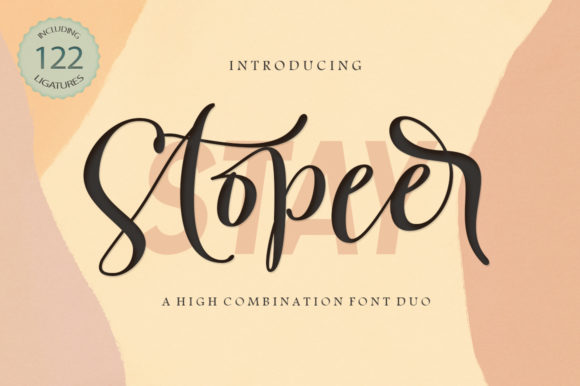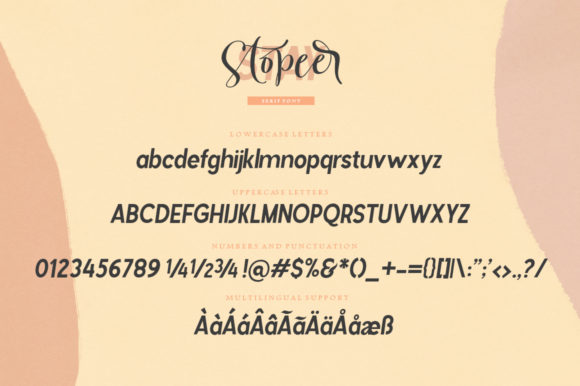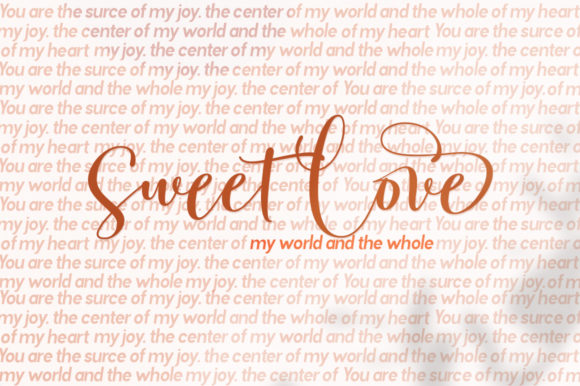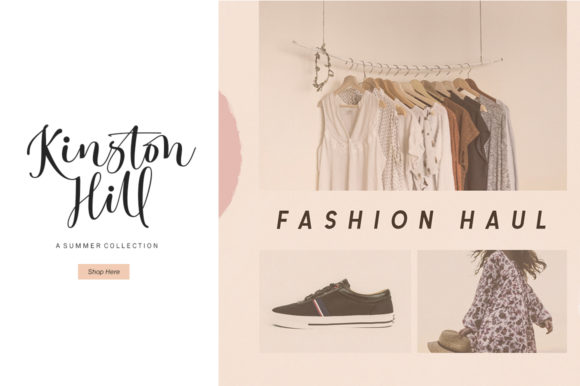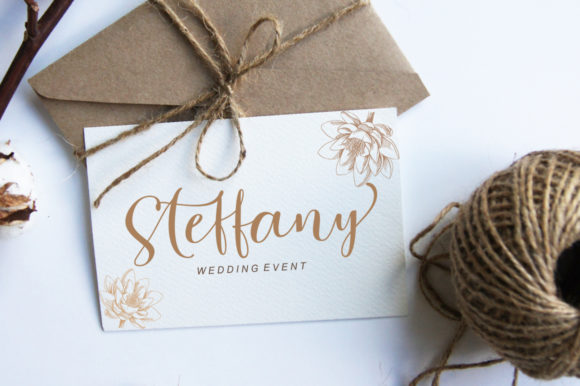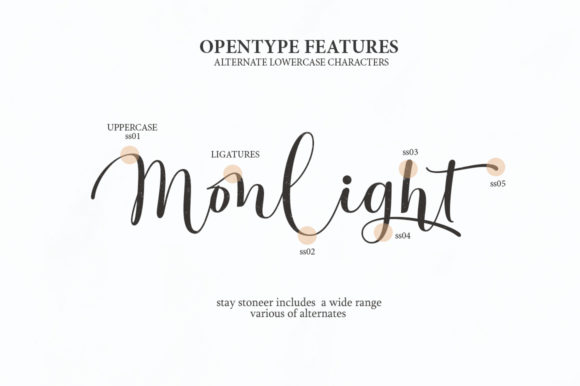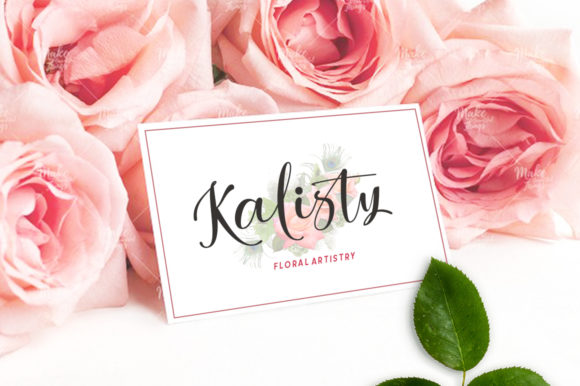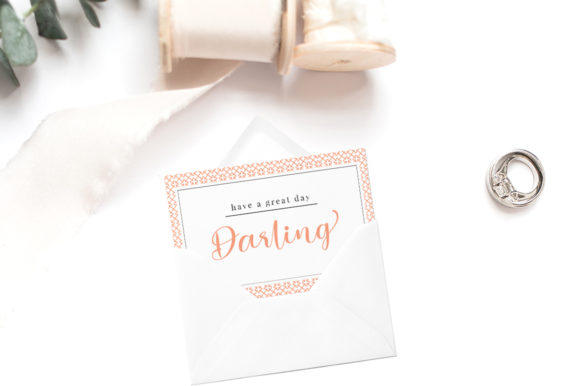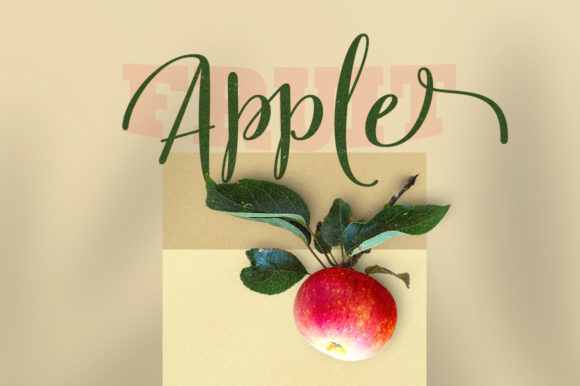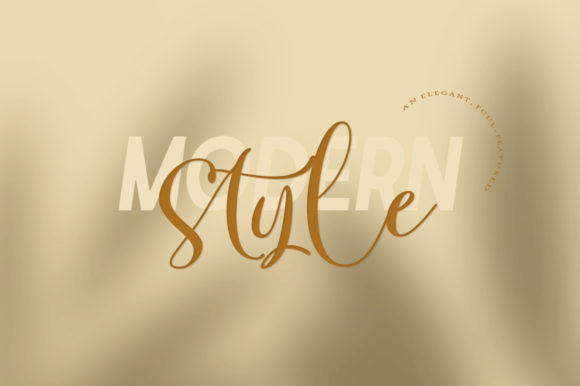
Stay Stopeer Duo Font
About Stay Stopeer Duo Font
Stay Stopeer is a beautiful and bright handwritten font duo. When combined, these two fonts will turn any design idea into a piece of art.